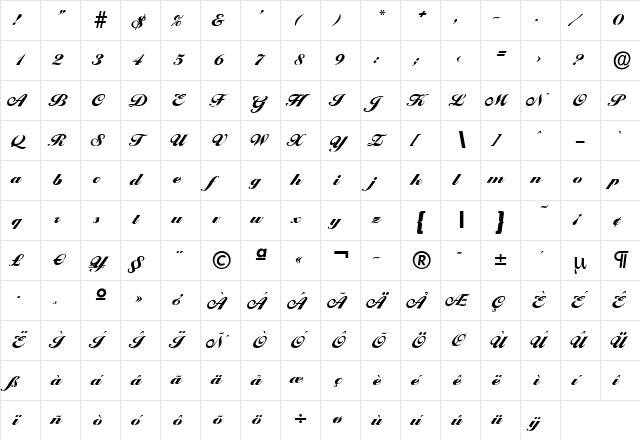
NicholasBecker-Black Regular
Design Context for NicholasBecker-Black Typeface
NicholasBecker-Black is a composed and adaptable typeface that performs quietly and consistently across a wide range of design contexts.